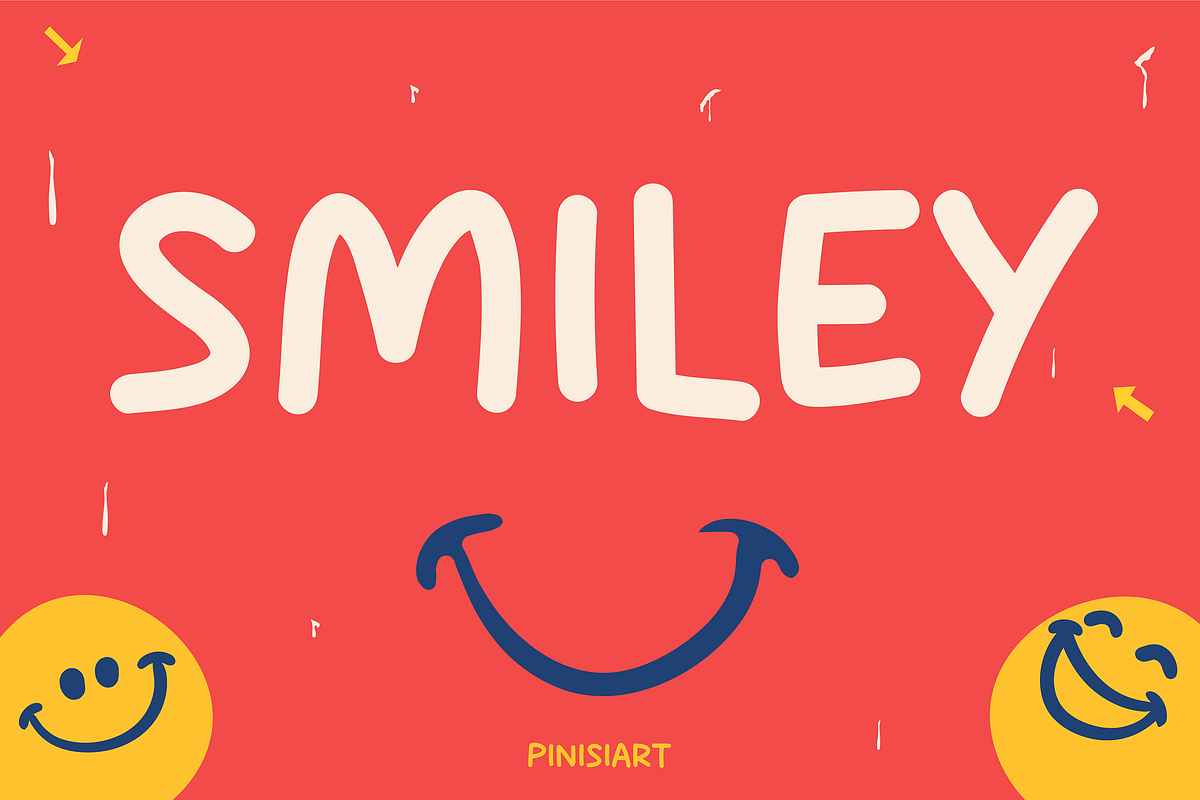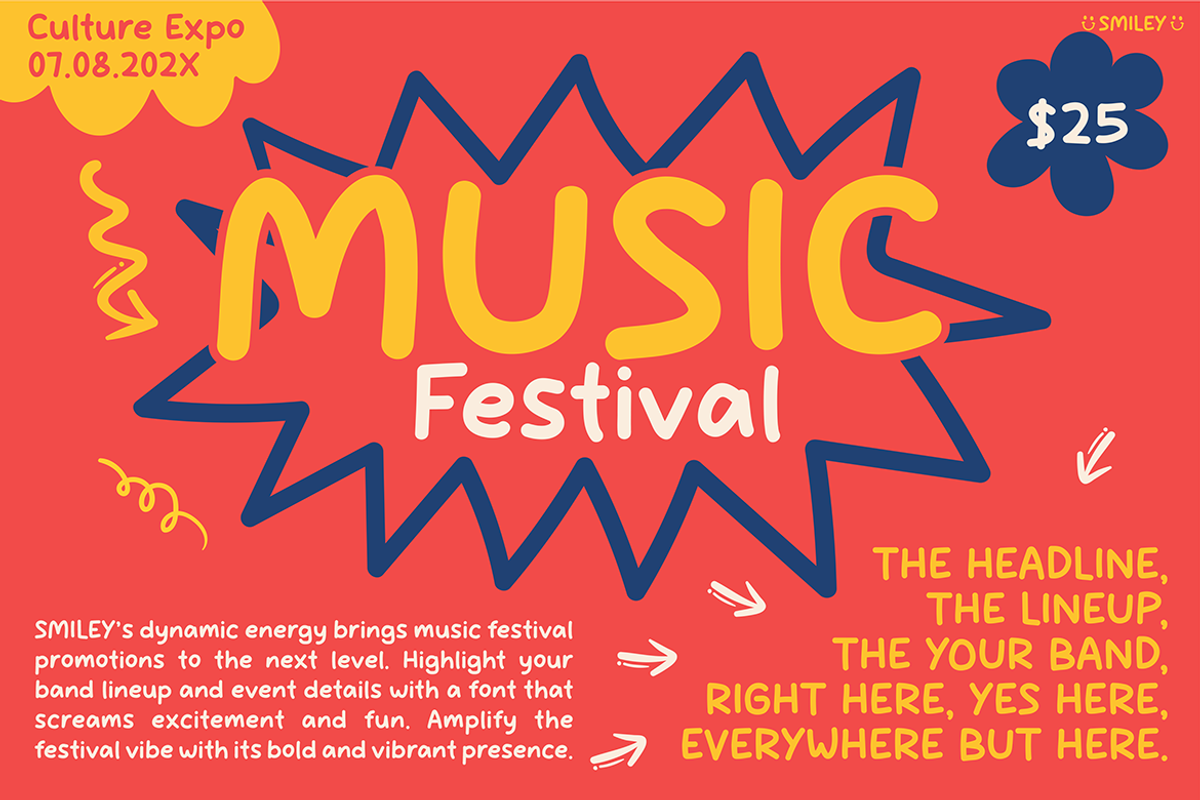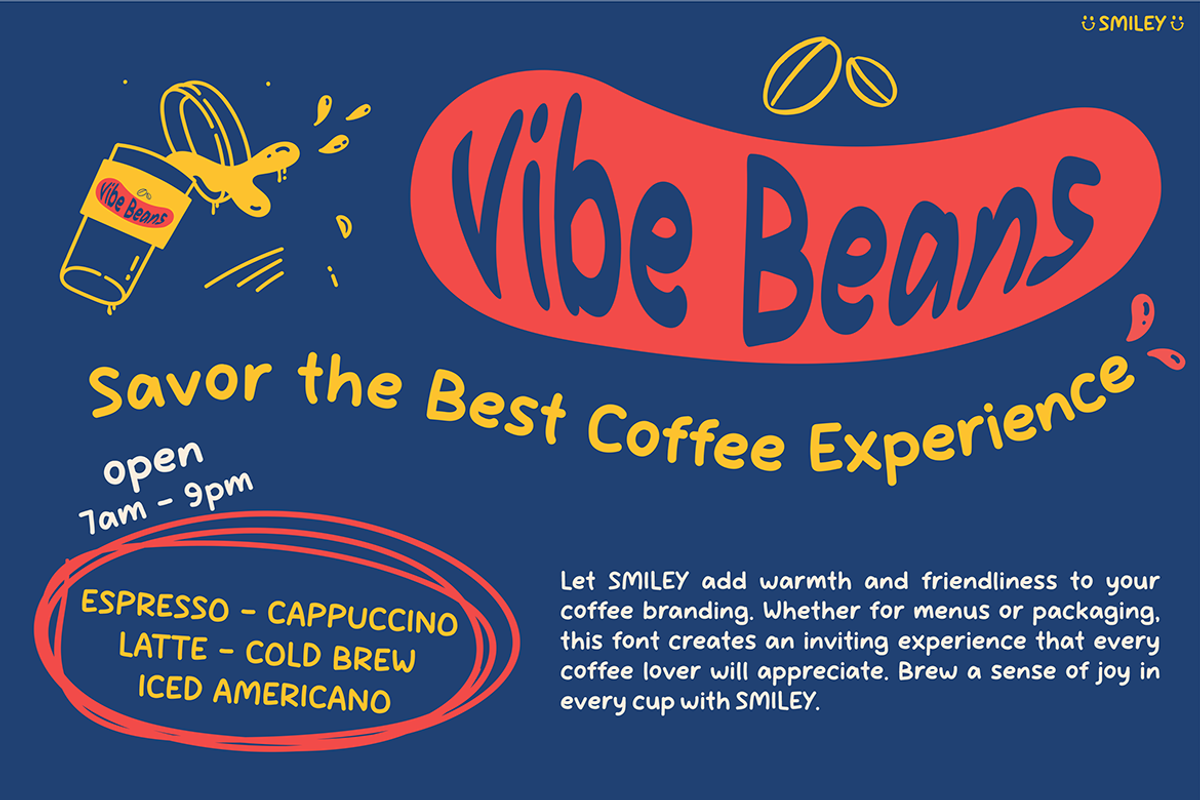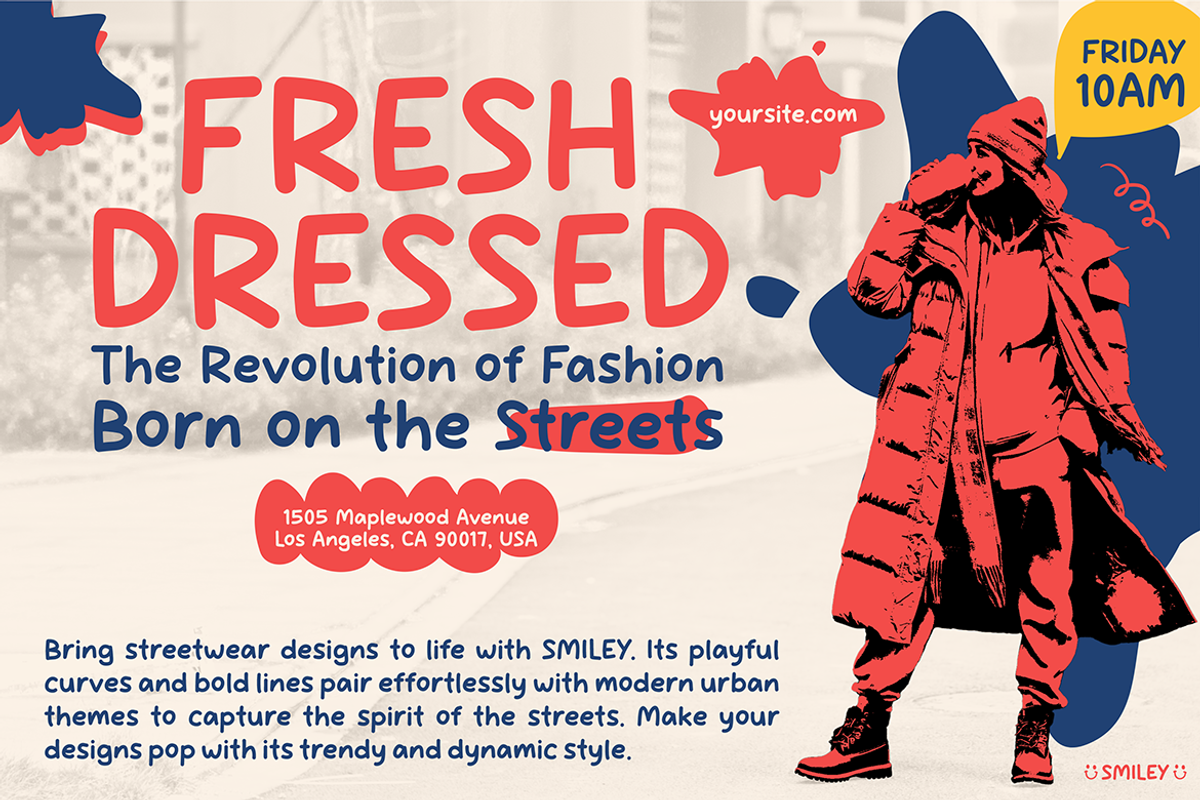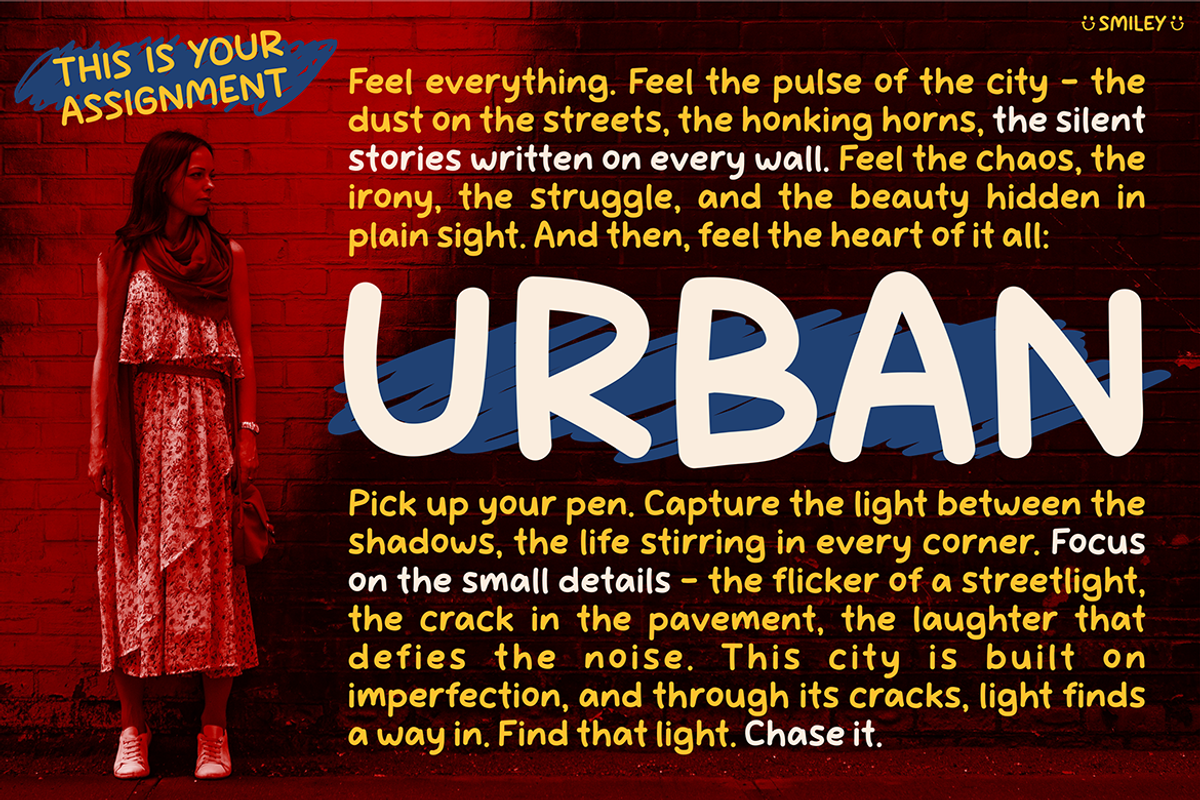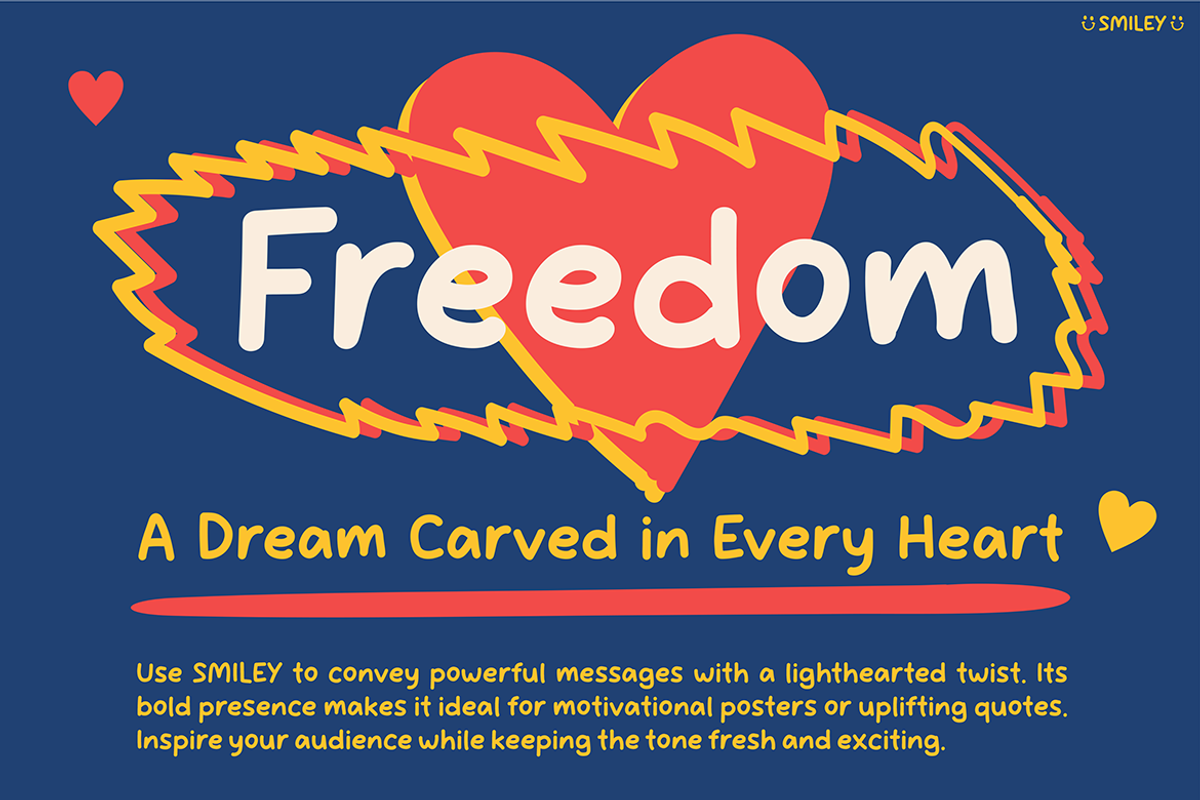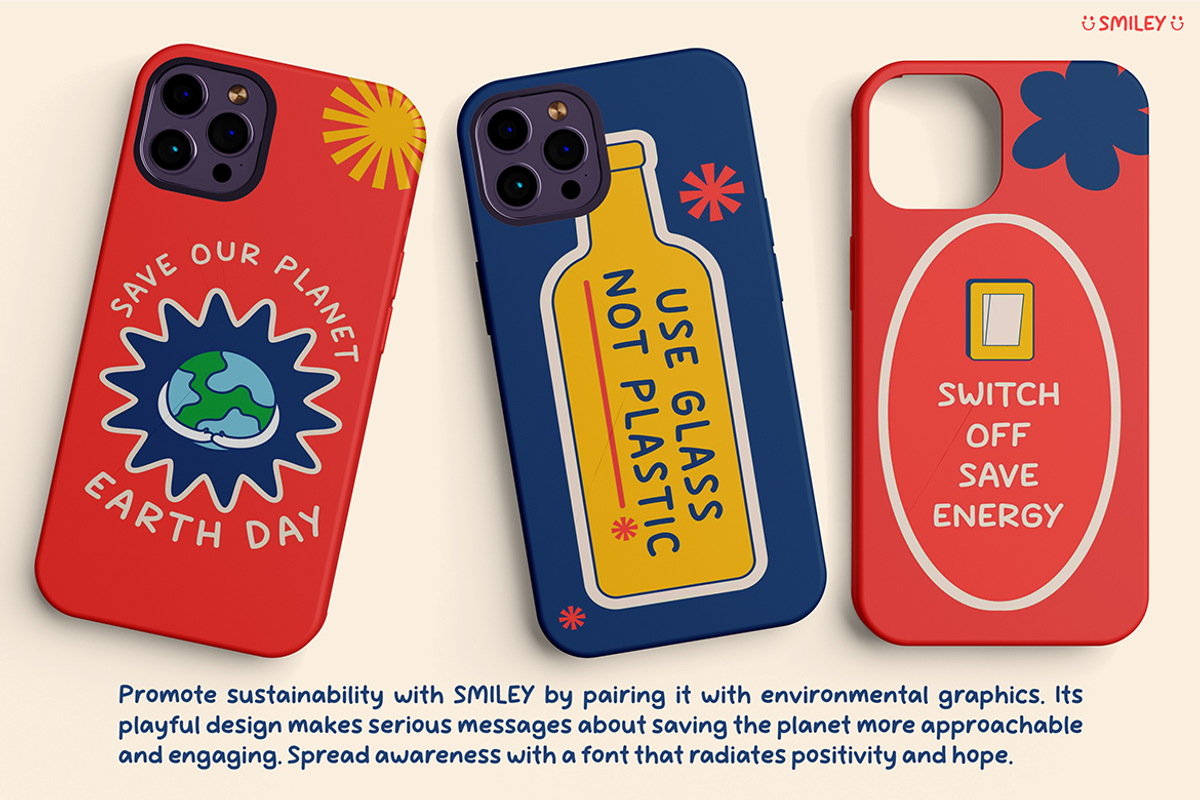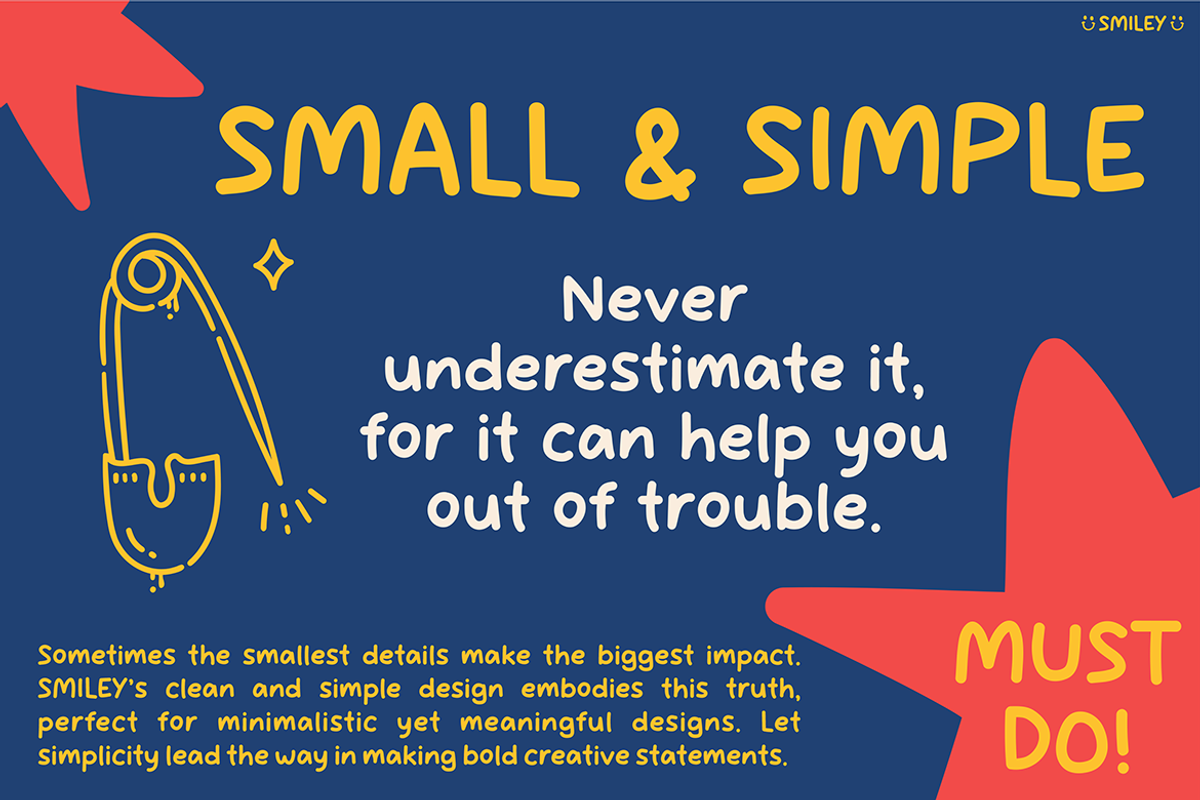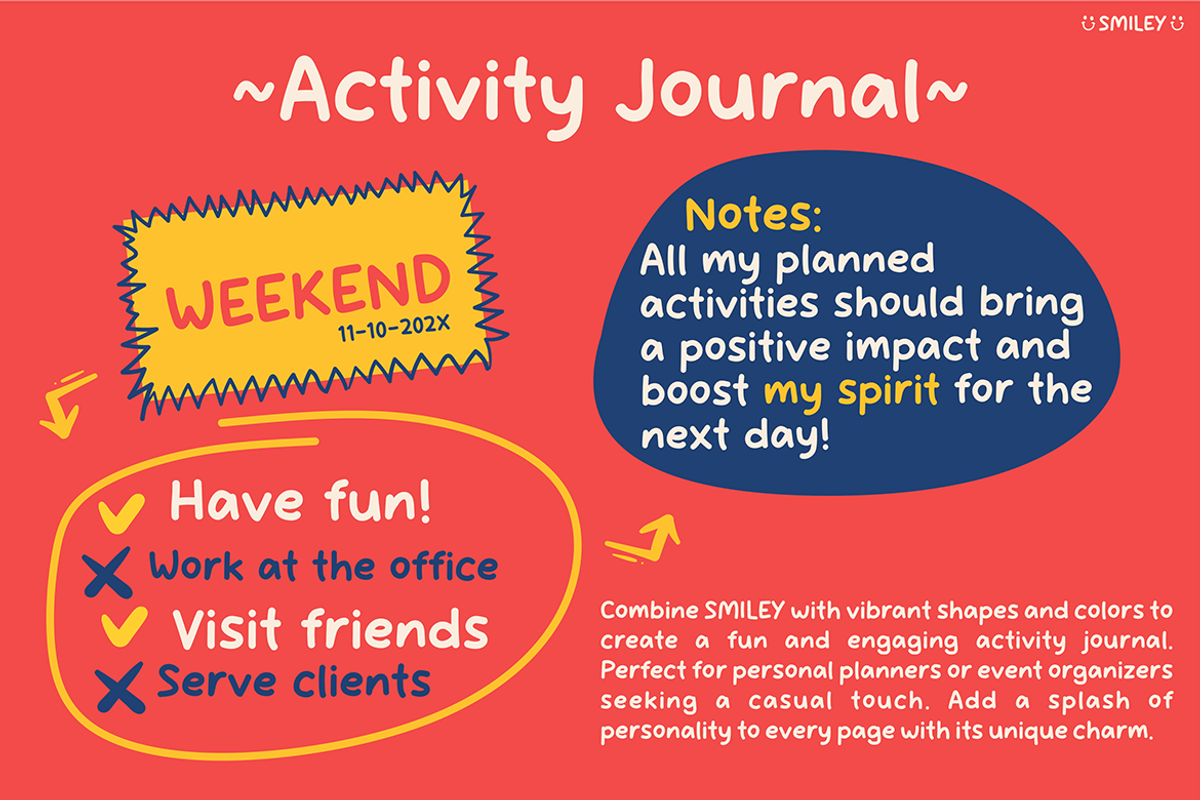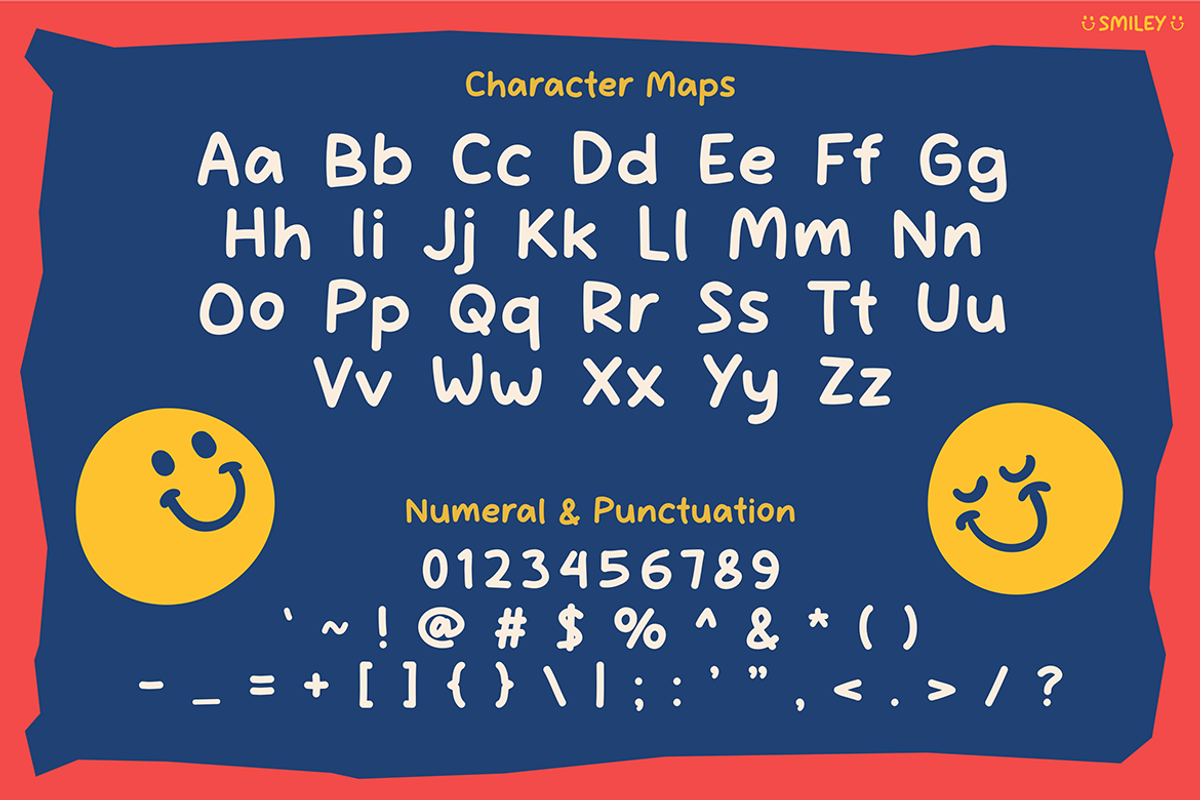
Smiley
Handwriting Font Smiley is a cheerful and approachable typeface. It perfectly captures the essence of a handwritten style with a playful personality. Its rounded, imperfect strokes create a casual yet vibrant feel, which makes it ideal for designs aiming to convey friendliness and warmth. Moreover, Smiley mimics natural handwriting, ensuring it feels organic while maintaining excellent legibility.
The font’s smooth curves and bold, slightly irregular shapes make it incredibly versatile. Furthermore, its simplicity and charm give it a modern edge that blends well into both casual and professional projects. In addition, Smiley’s joyful demeanor is enhanced by its soft, bubbly appearance. For this reason, it is especially appealing for family-oriented or kid-friendly designs.
Beyond its visual delight, Smiley is also practical. It adapts well to vibrant color palettes, playful illustrations, and minimalistic layouts. Designers can easily use it in logos, packaging, posters, or social media content. As a result, Smiley spreads happiness through its unique and charming personality.